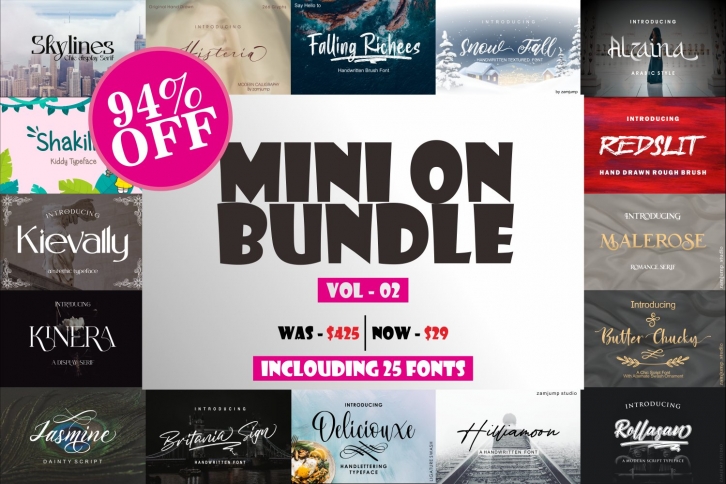
Mini on Bundle Vol -2 is a trendy and unique font with an authentic style. It was designed by zamjump and it's a great choice for creative people who need such a font. It was released on August 1, 2022 and the file size is 13.30 MB. Mini on Bundle Vol -2 will add an organic vibe to any design idea!